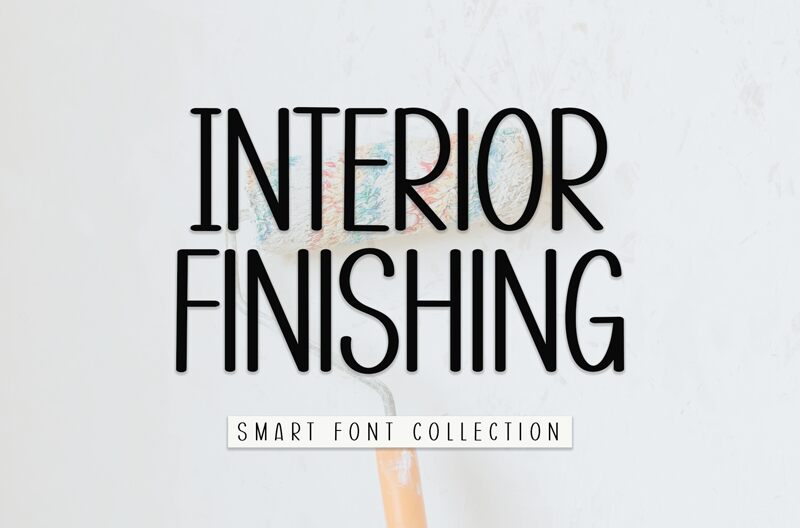
Interior Finishing
Interior Finishing is a handwritten font by Etik Fatimah that captures understated elegance in each letter. Condensed and with geometric influence, it presents clean lines that convey a sophisticated and modern atmosphere. This minimalistic font balances naturally between lightness and weight to establish the perfect tone.
Use Interior Finishing for package design, branding projects, magazines, interviews, invitations (especially wedding invitations), home décor items, decorating/ interior design advice books or editorials for stylish fashion outfits.